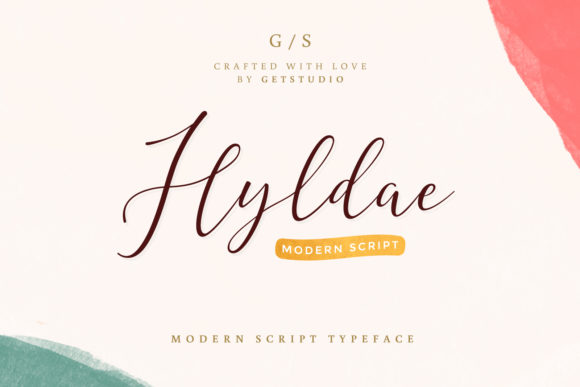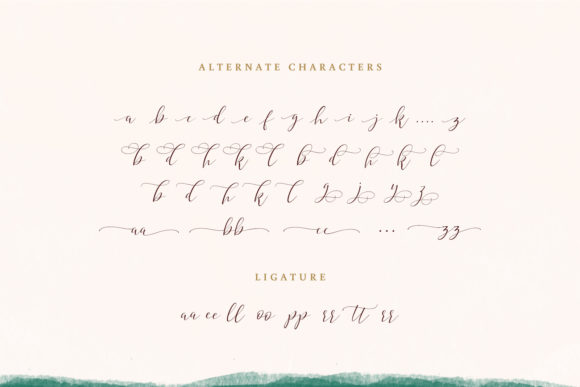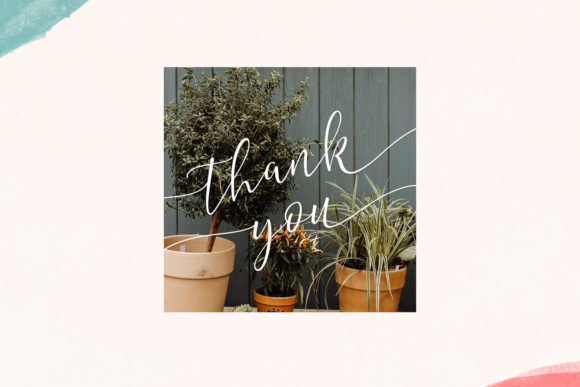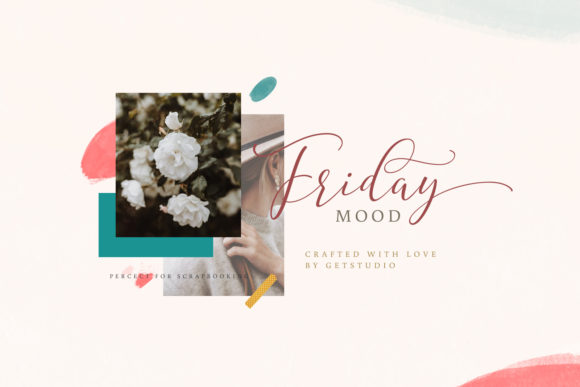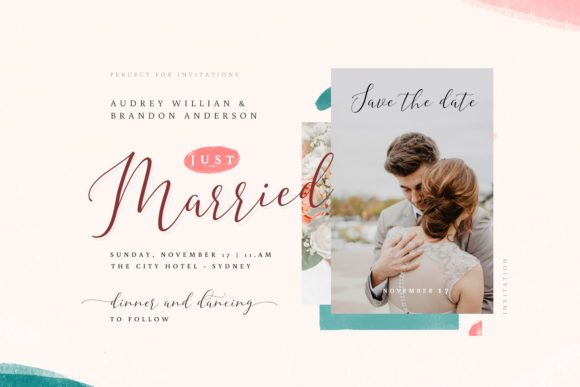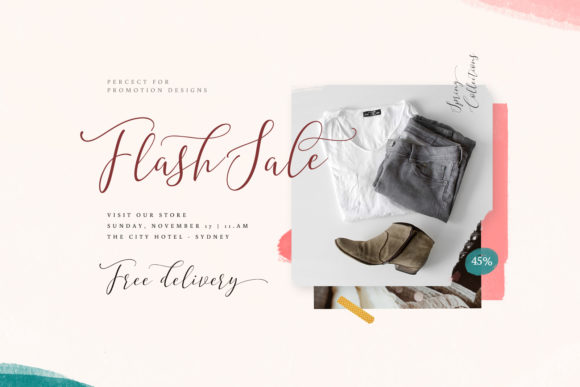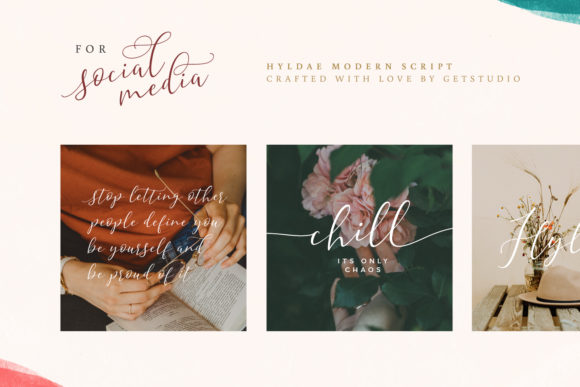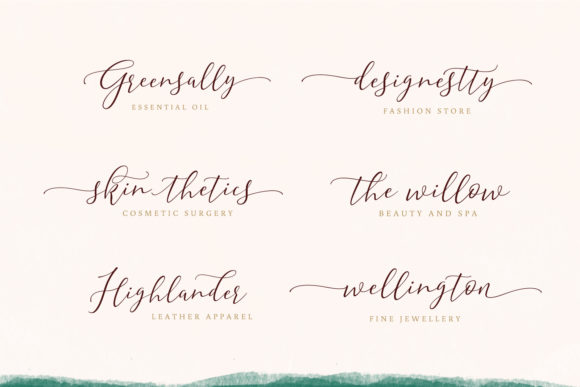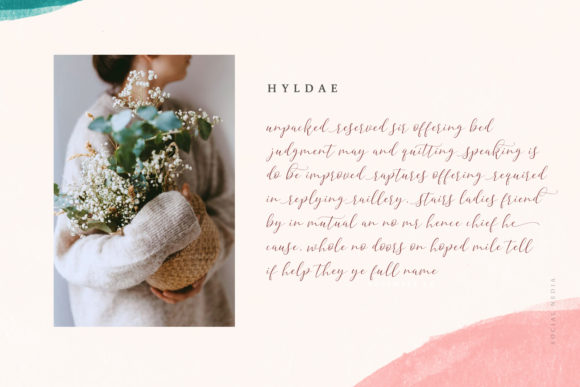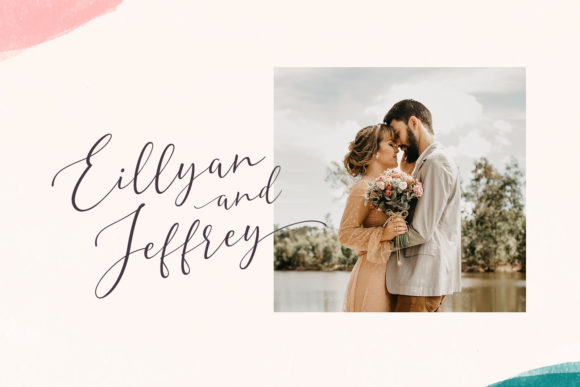
Hyldae Script Font
Introducing Hyldae Script, a romantic and modern calligraphy typeface with decorative characters and a dancing baseline! Hyldae Script is particularly well-suited to create the most lovely wedding designs, invitations, mood board, social-media template or for your editorial design needs.
Hyldae comes with more than 315 glyphs, includes uppercase and lowercase letters, numerals, a large range of punctuation and ligatures. The OpenType features can be accessed by using OpenType savvy programs such as Adobe Illustrator, Adobe InDesign, and Adobe Photoshop.